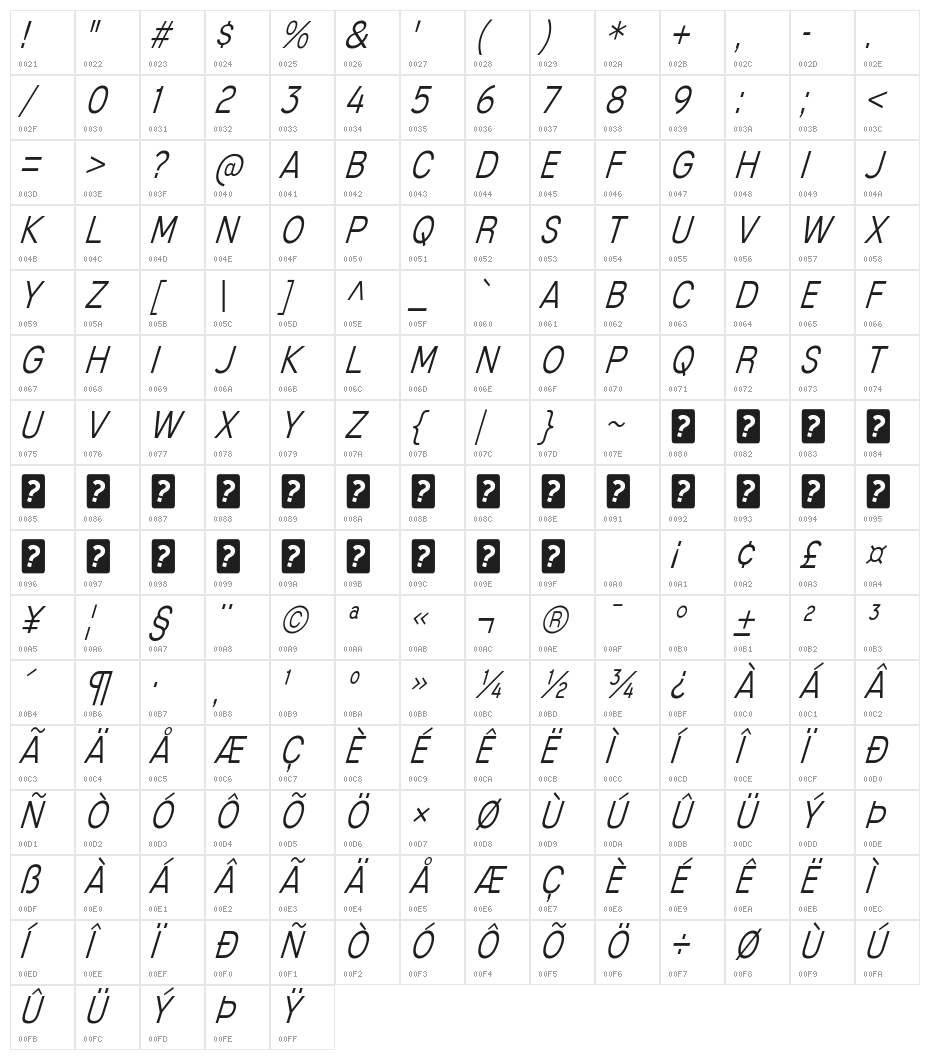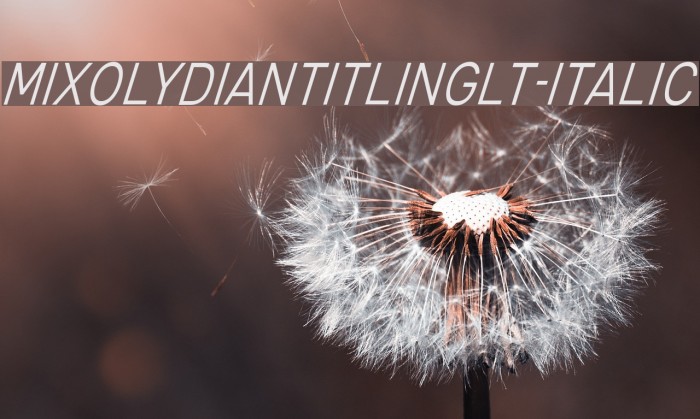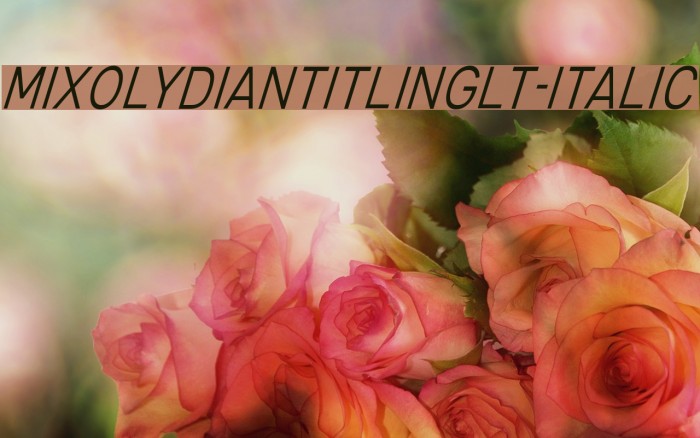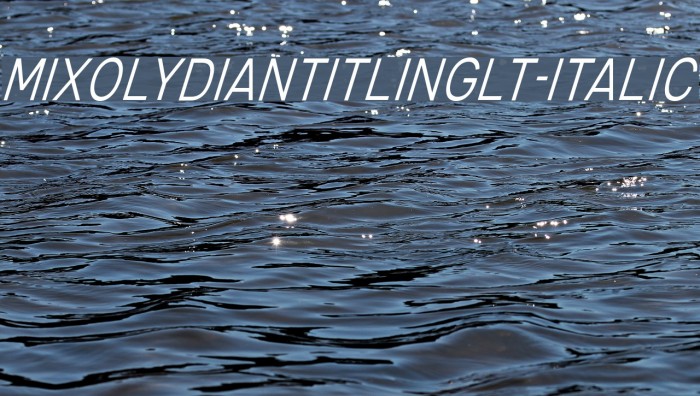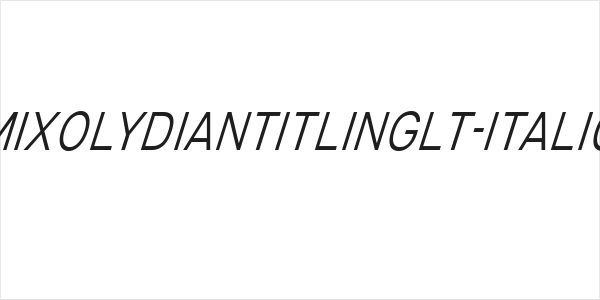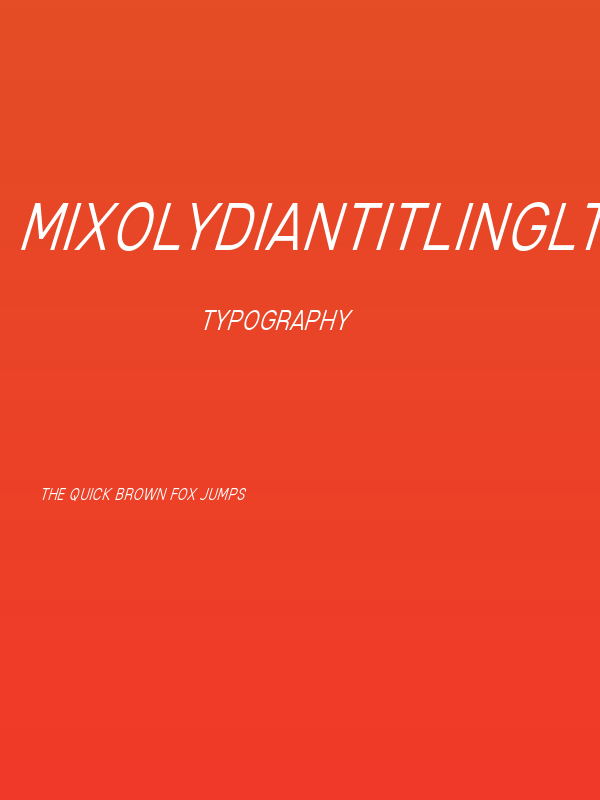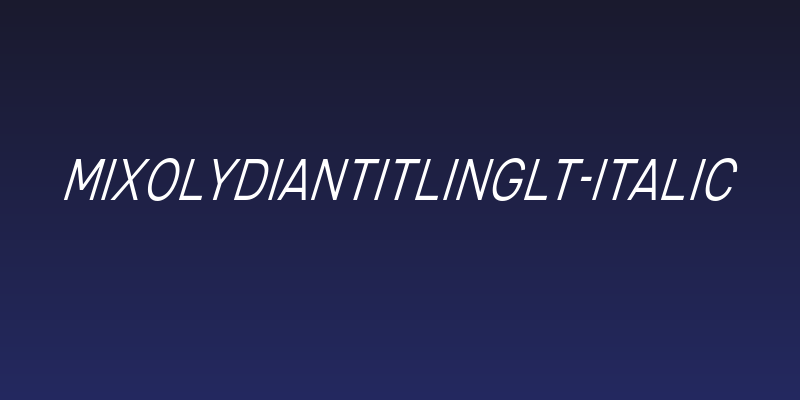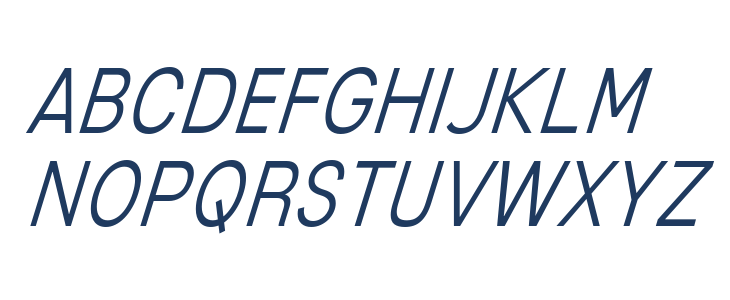
MixolydianTitlingLt-Italic Font
MixolydianTitlingLt-Italic Description
This font features an elegant and modern italic style with a clean and streamlined appearance. The characters are slightly slanted, giving a sense of motion and dynamism. The strokes are consistent and smooth, with a uniform thickness that maintains readability. The font includes both uppercase and lowercase letters, numerals, and a range of special characters. Its design is versatile, suitable for various applications where a contemporary and sophisticated look is desired.
| Use Case | Headlines, Logos, Editorials |
| Proposed Projects | Ideal for branding, advertising, and editorial design projects where a modern and elegant touch is needed. |